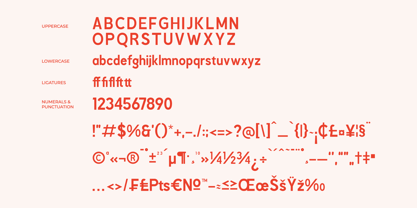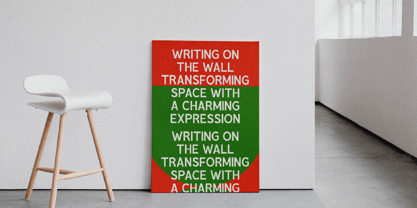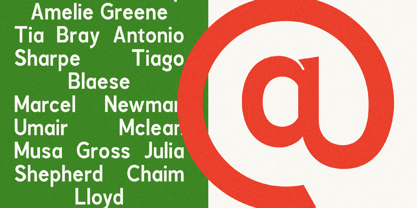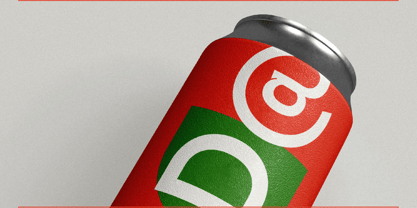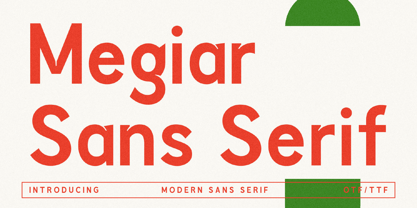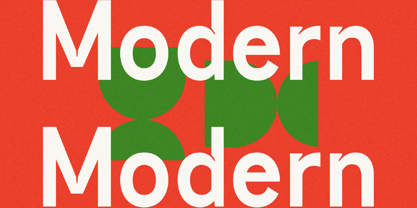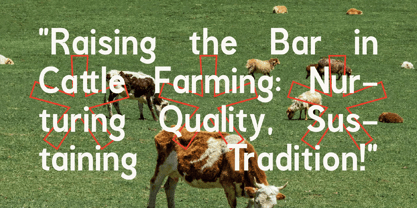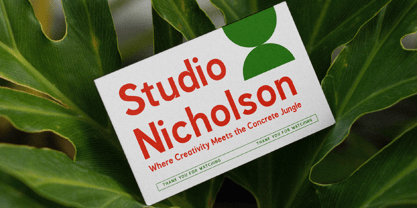
Megiar
by Letterena Studios
The Megiar Font Family was designed by Heru Utama Putra and published by Letterena Studios. Megiar contains 2 styles and family package options. More about this family
Proudly present Megiar Typeface , created by Storytype, A serif modern and classic typeface that has own unique style & modern look. This typeface is perfect for an elegant & luxury logo, book or movie title design, fashion brand, magazine, clothes, lettering, quotes, and so much more. What’s Included : Standard glyphs Alternate and Ligature Works on PC & Mac Simple installations Accessible in the Adobe Illustrator, Adobe Photoshop, Adobe InDesign, even work on Microsoft Word and Other Software. PUA Encoded Characters – Fully accessible without additional design software. Fonts include multilingual support